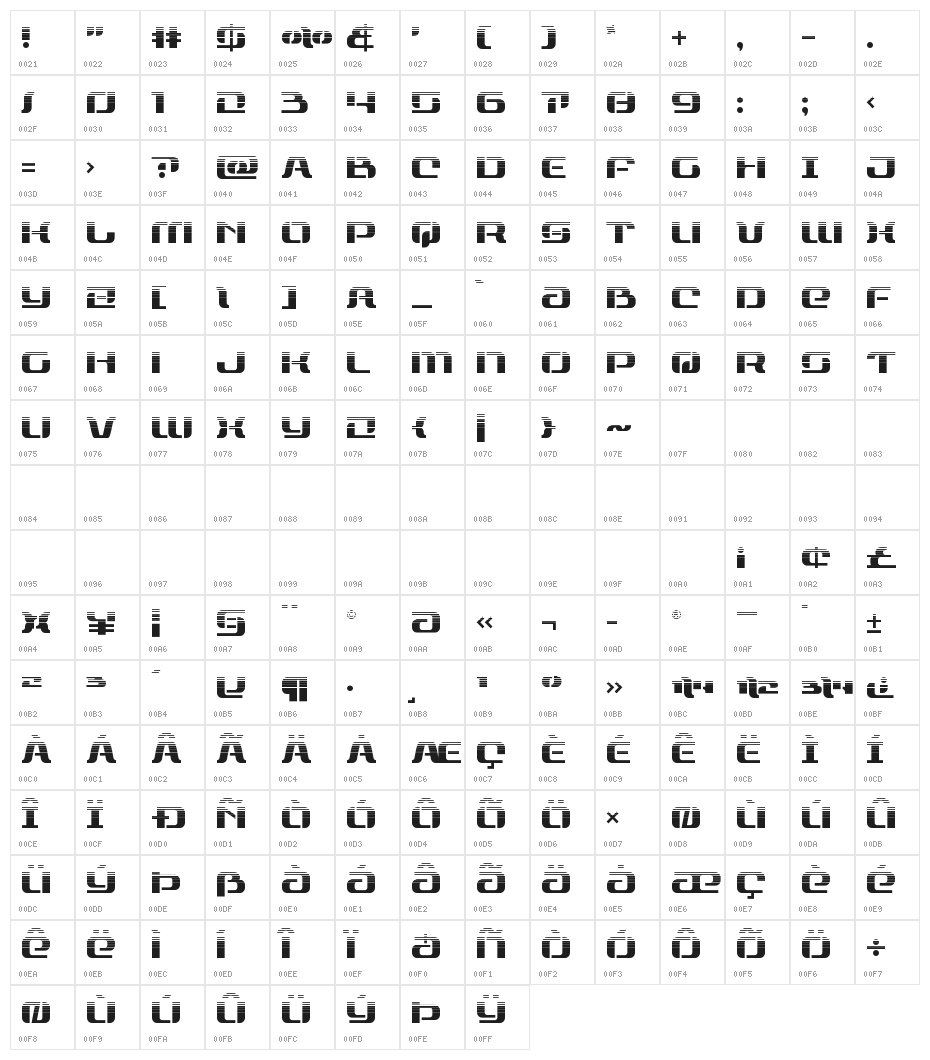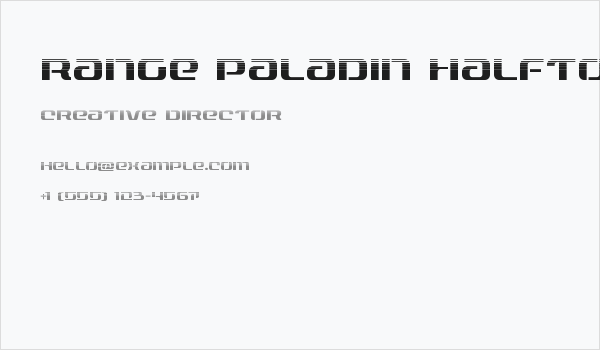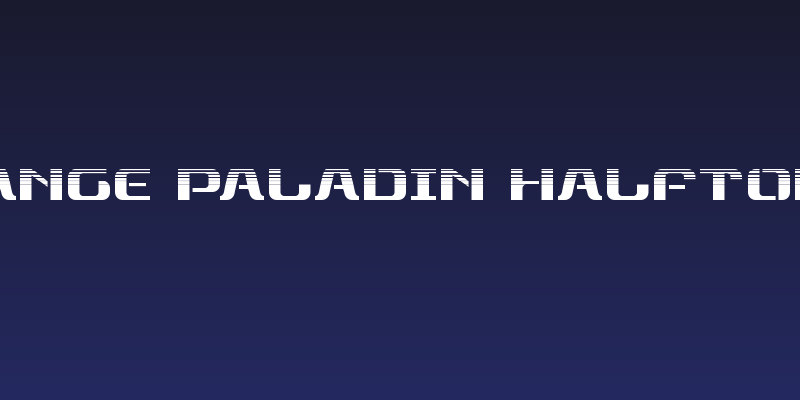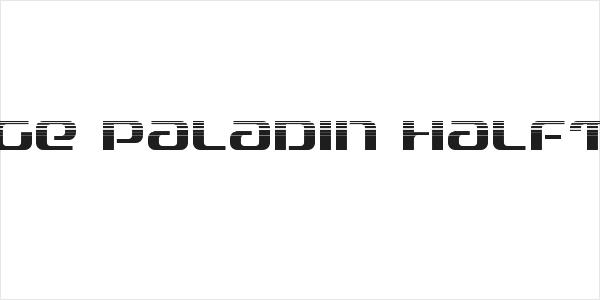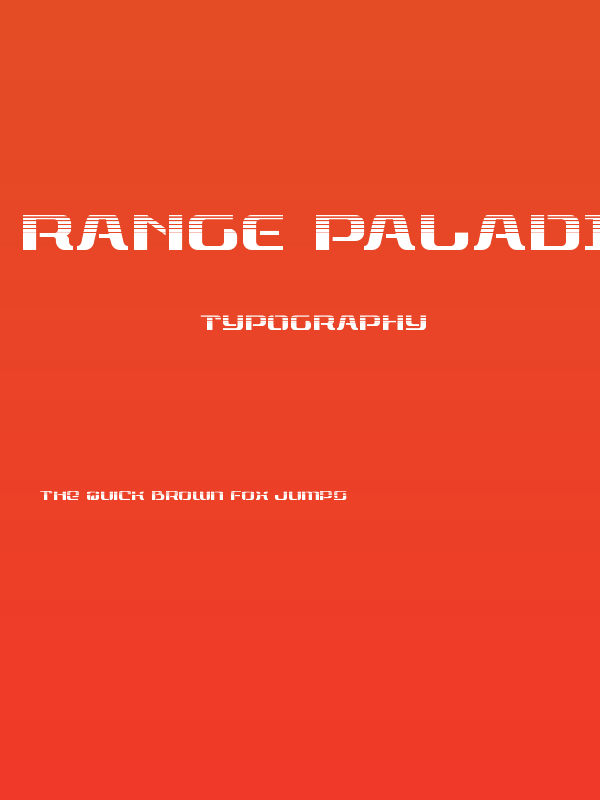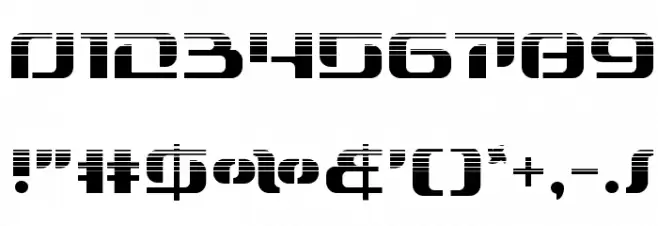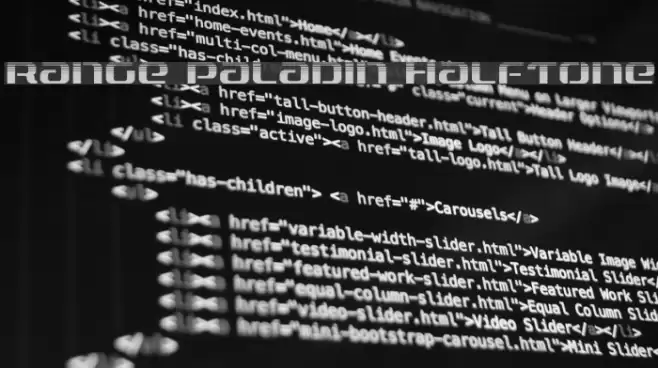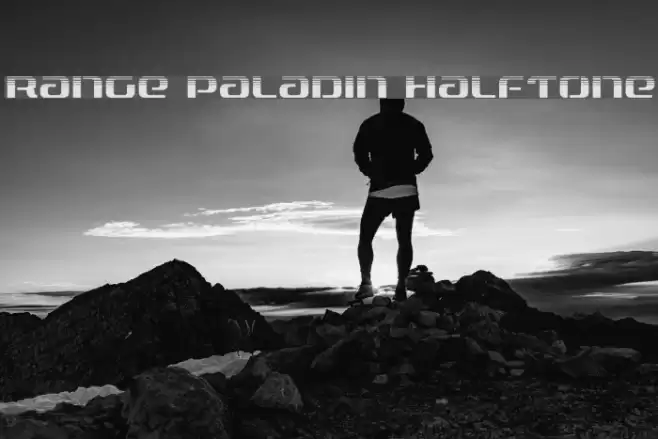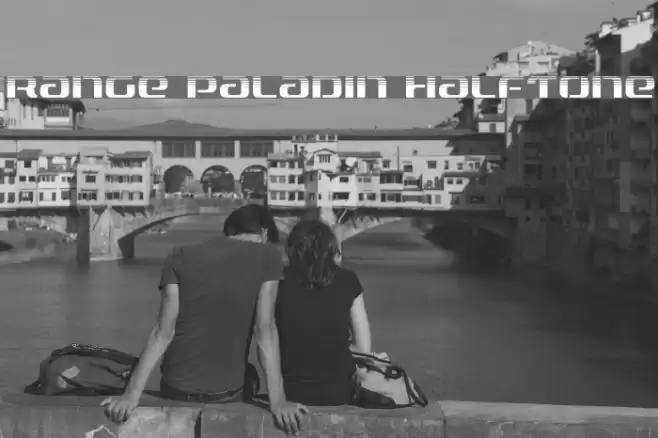
Range Paladin Halftone Font
Range Paladin Halftone Description
This font features a bold, futuristic design with a halftone effect that gives it a unique, digital appearance. The characters are constructed with a series of horizontal lines that create a sense of movement and energy. The uppercase and lowercase letters maintain a consistent style, with sharp angles and a geometric structure. The numbers and special characters follow the same design principles, ensuring a cohesive look across all elements. This font is ideal for projects that require a modern, tech-inspired aesthetic.
| Use Case | Logos, Headlines, Posters |
| Proposed Projects | Ideal for tech branding, digital artwork, video game design, and futuristic posters. |